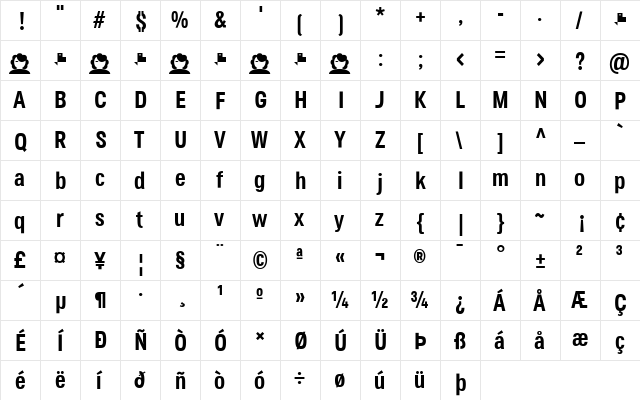
Jane Roe Bold
| Foundry | deFharo |
| Designer | Fernando Haro |
Design Context for Jane Roe Typeface
Jane Roe takes a measured approach to typography — its balanced proportions and neutral character make it a reliable workhorse for both digital and print work. The heavy weight commands attention and anchors typographic hierarchies.